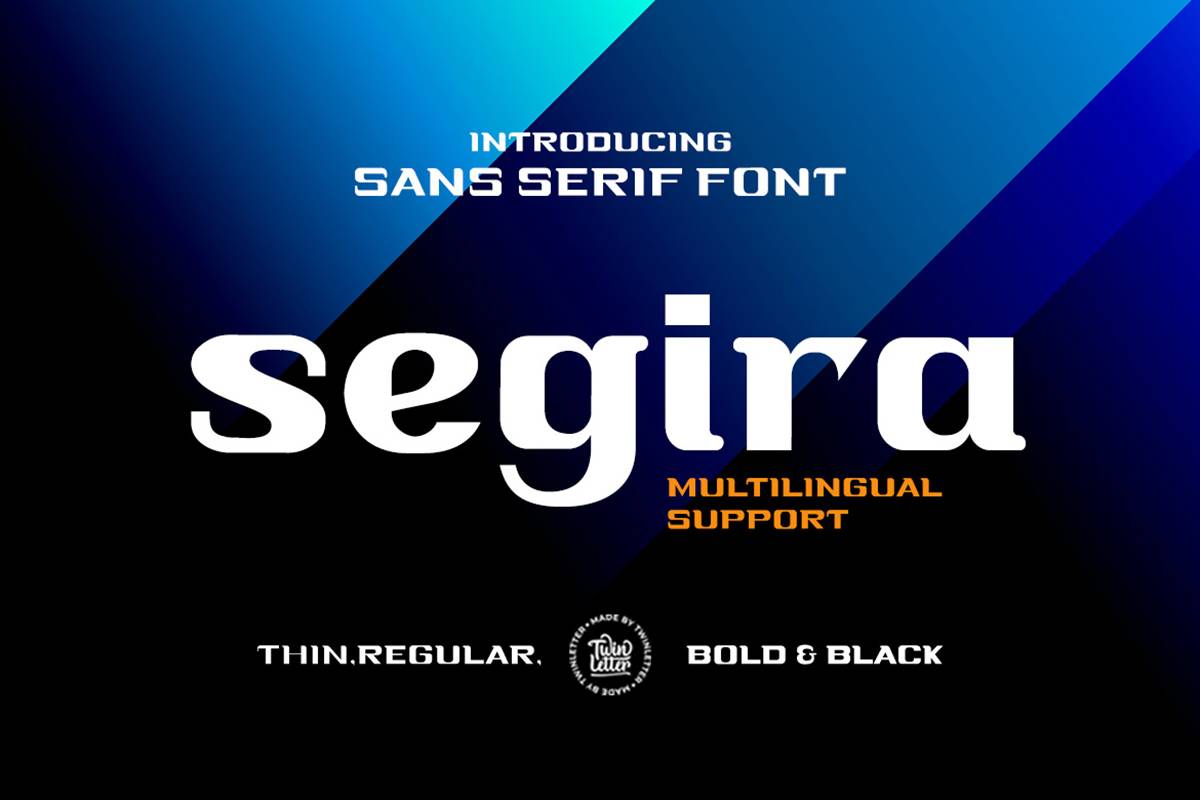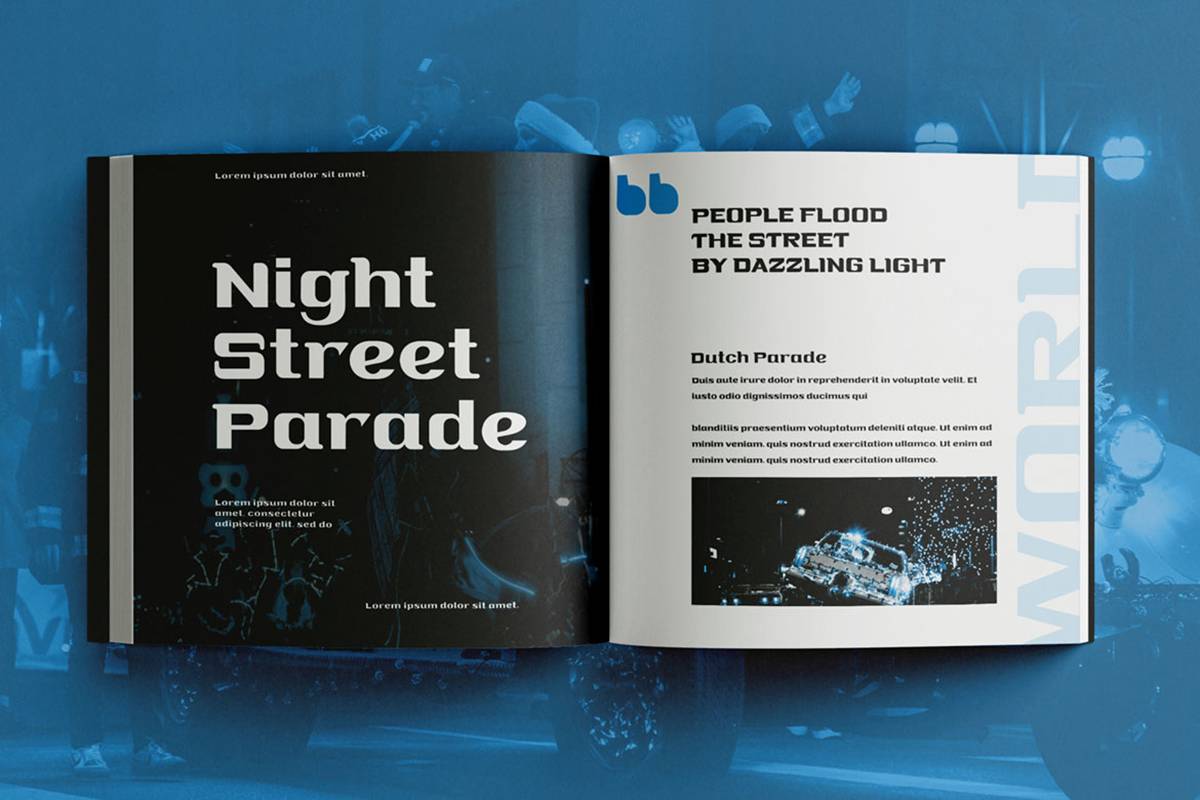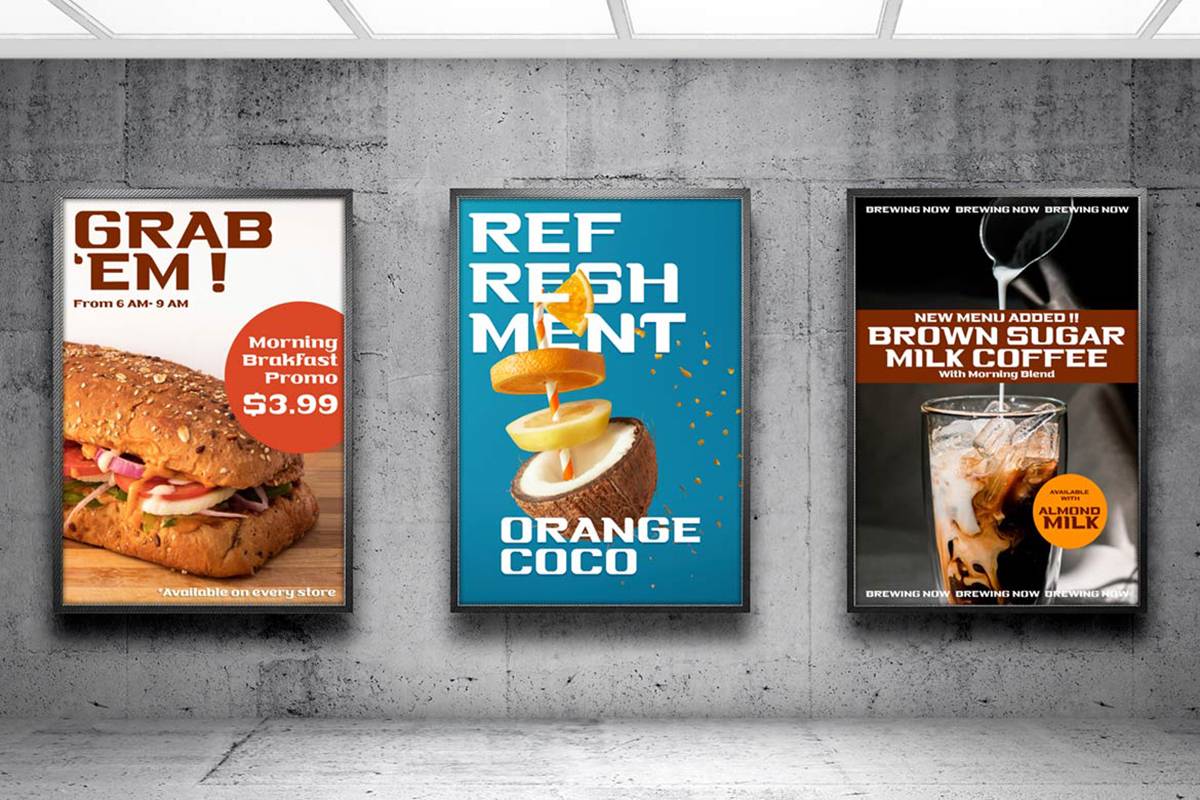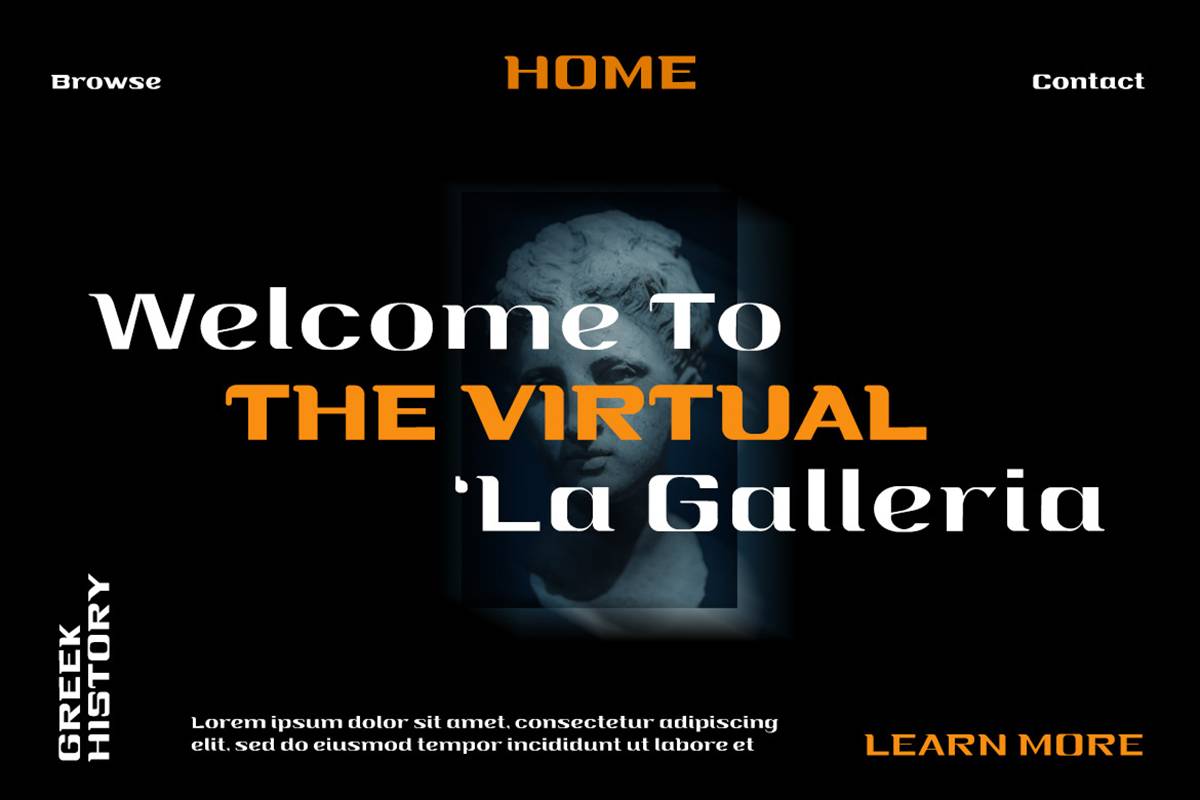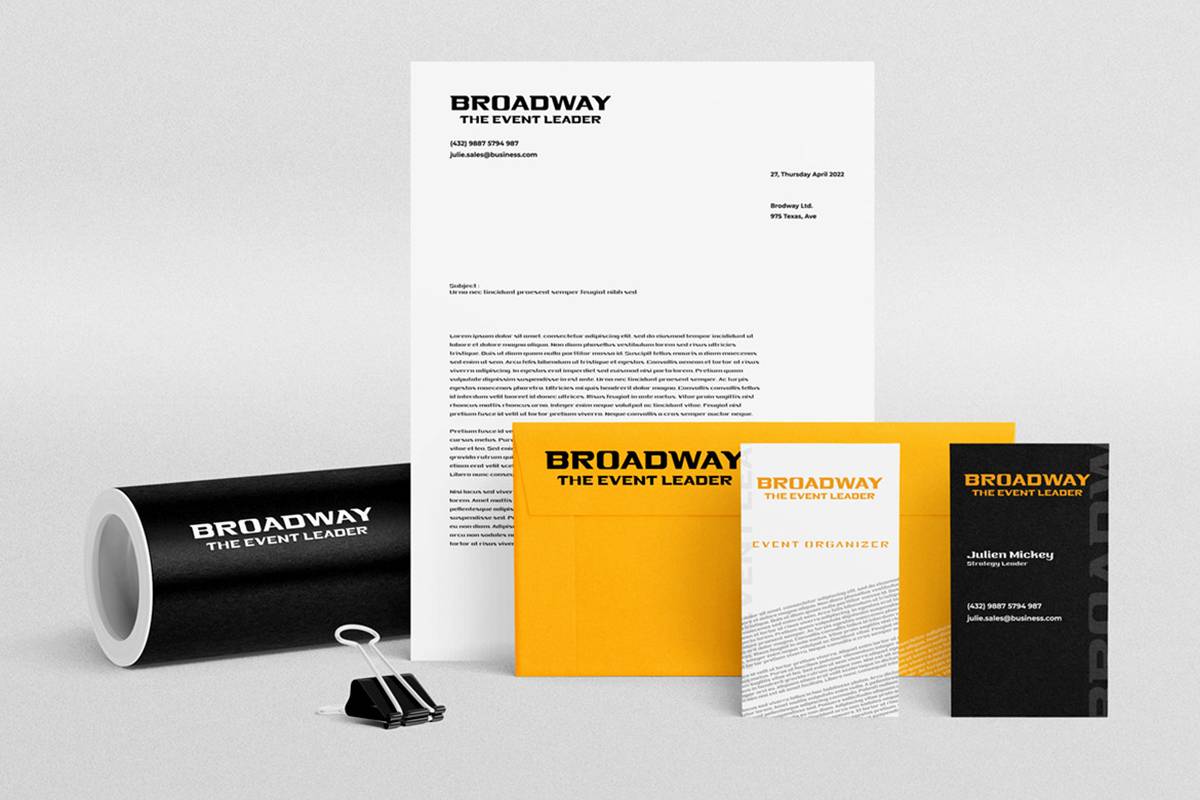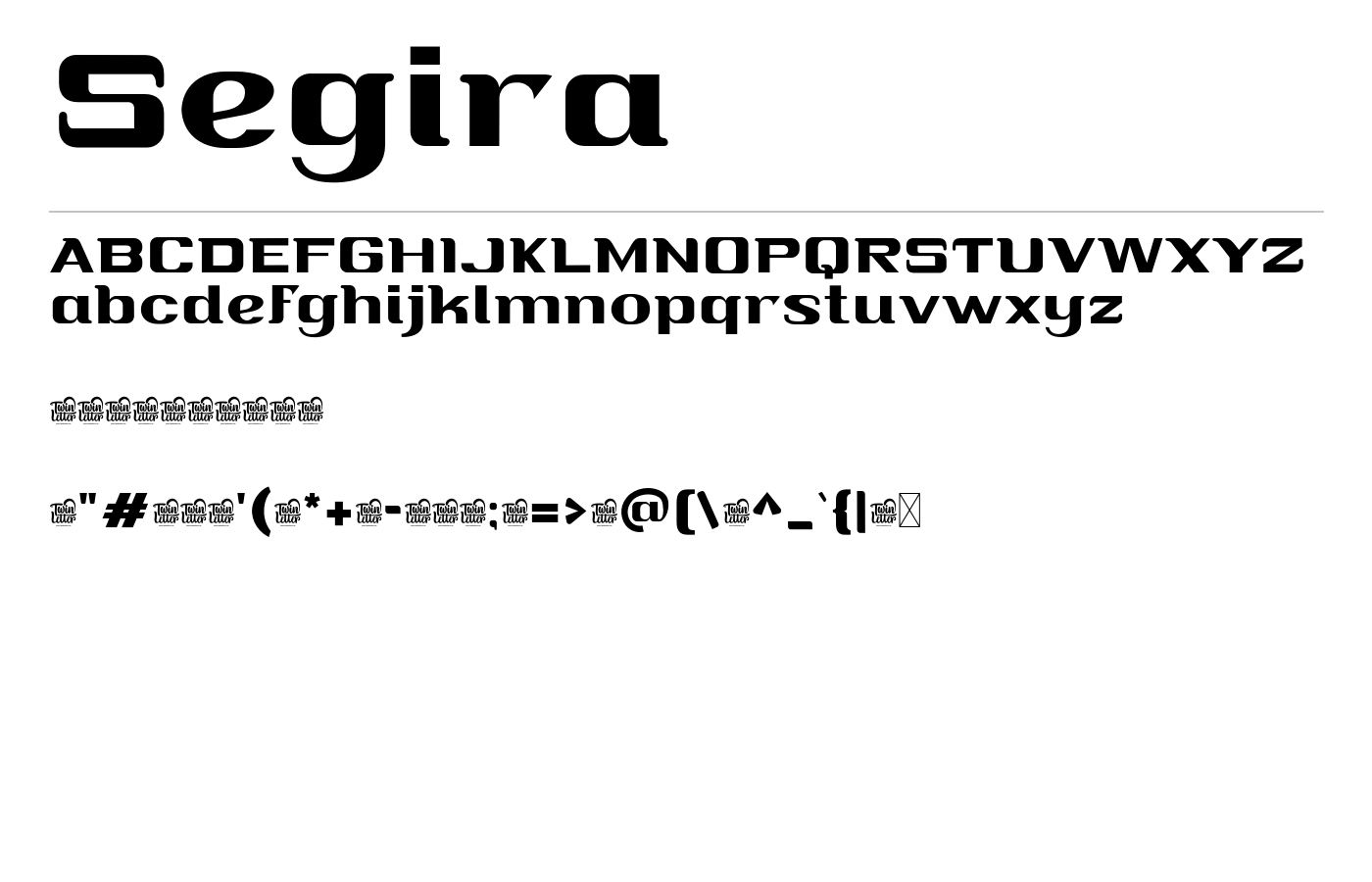
Segira is a bold slab serif font with a distinctive blend of geometric shapes and soft curves, giving it a modern yet sturdy appearance. Its medium width and moderate contrast between thick and thin strokes create a strong, clear presence, making it ideal for headlines, logos, and branding that seek a confident, stylish impact. This font works well in editorial designs, posters, and packaging where a unique, contemporary serif adds personality without sacrificing readability.
Segira Font